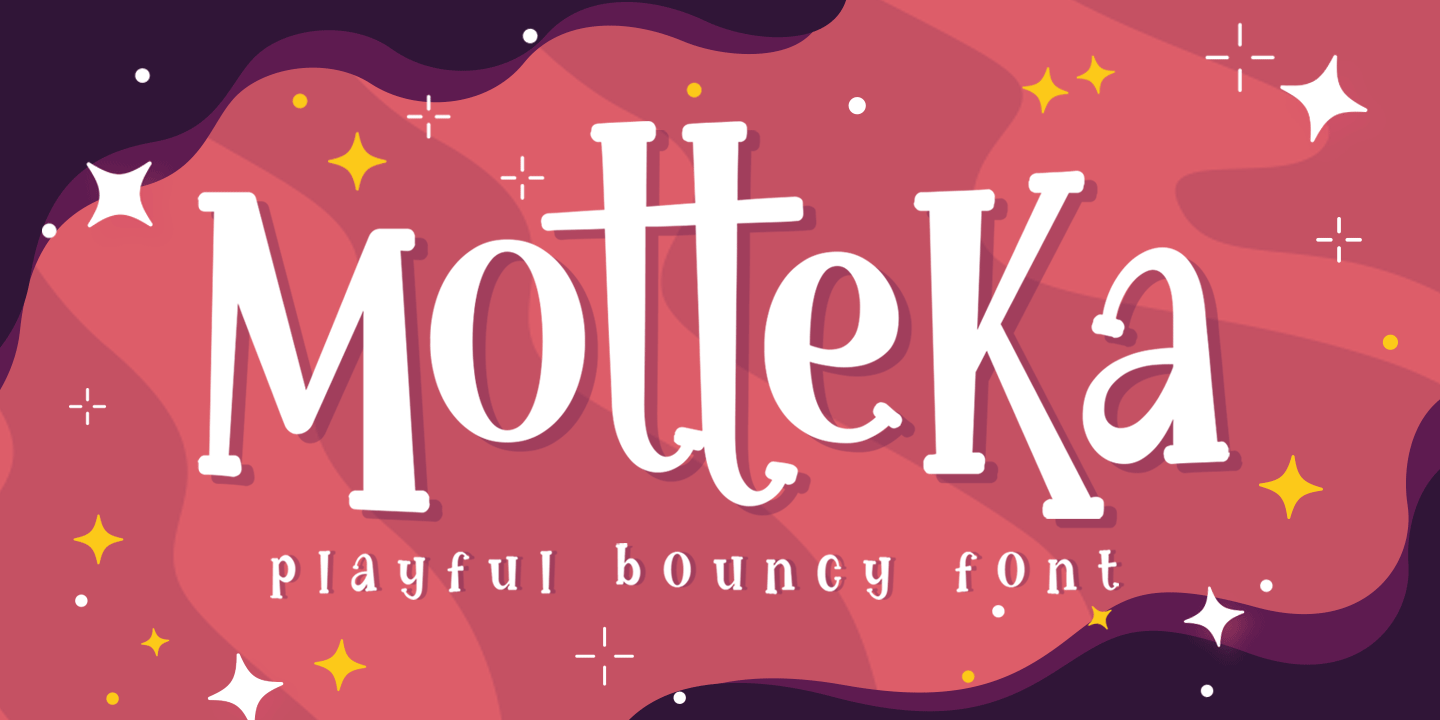
Motteka Font is perfect for urban streetwear branding, hip-hop music album covers, graffiti-inspired designs, youth culture campaigns, skateboard graphics, street art exhibitions, underground music promotions, and contemporary lifestyle advertising.
Motteka Font is exciting because it authentically captures the raw energy and rebellious spirit of urban street culture with its bold, expressive letterforms that pulse with the rhythm of city life and underground creativity, making it ideal for projects requiring genuine street credibility and contemporary edge that resonates with youth audiences.
The Motteka Font family includes multiple weights and styles such as Regular, Bold, Light, Stencil, and Distressed versions, providing designers with comprehensive options for creating dynamic typographic systems that maintain the authentic street aesthetic across various urban and lifestyle applications.
Motteka Font Free Download represents the authentic voice of contemporary urban culture, offering designers access to a typeface that embodies the creative energy and artistic expression found in city streets worldwide. This powerful font captures the essence of underground movements and the innovative spirit that drives youth culture, creating an essential tool for brands seeking to connect with urban audiences and street culture communities.
The font's dynamic letterforms feature bold strokes and confident proportions that mirror the fearless attitude found in graffiti art and street-level creativity. Each character has been carefully crafted to work harmoniously within compositions while maintaining the individual personality that makes Motteka Font so effective in authentic urban communication and lifestyle branding applications.
Professional designers working with streetwear brands and youth-focused campaigns appreciate this font's ability to communicate authenticity and cultural relevance. The typeface excels in applications where street credibility meets commercial appeal, from fashion brand identity to music industry promotions, from skateboard company branding to urban lifestyle marketing campaigns.
The comprehensive character set includes street-inspired symbols and urban typography elements, making it particularly suitable for projects targeting youth demographics while preserving its distinctive underground character. Whether used for bold headlines, product labels, or environmental graphics, this font delivers consistent visual impact that enhances brand connection with street culture audiences.
Creative professionals in the fashion and entertainment industries have embraced Motteka Font for its unique ability to bridge authentic street culture with mainstream commercial applications. Its versatility allows it to adapt seamlessly to both underground and commercial contexts while maintaining its rebellious spirit and urban authenticity.
This remarkable typeface has become an essential resource for designers who understand that connecting with urban audiences requires typography that speaks their cultural language. Its ability to instantly communicate street credibility and youth energy makes it invaluable for brands operating in competitive lifestyle and entertainment markets.